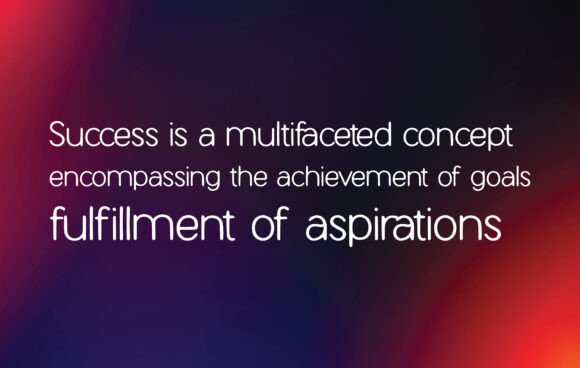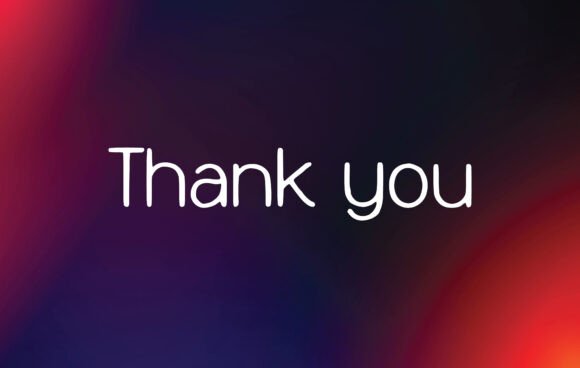
Introduction to Messiah Font
Messiah is a lovely and beautiful font.
Key Features of Messiah Font
Why Choose Messiah Font?
Messiah Font offers exceptional quality and versatility, making it a valuable addition to your design toolkit. Whether you’re creating for personal projects or commercial use, Messiah Font delivers professional results.